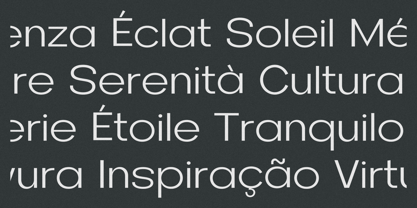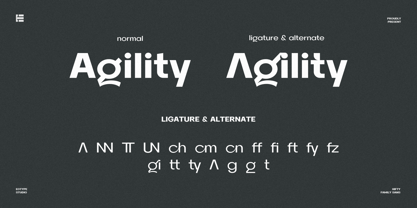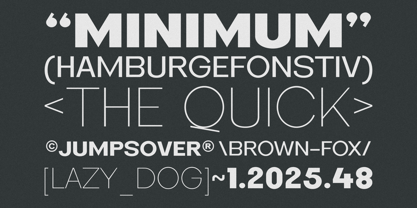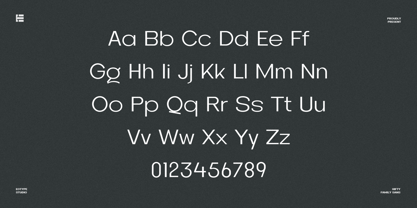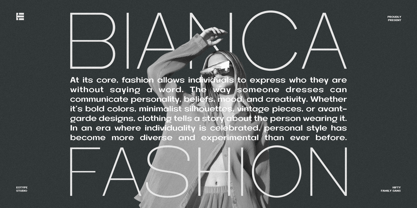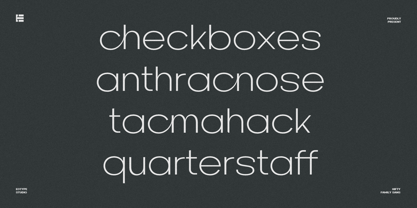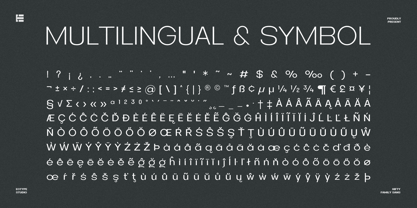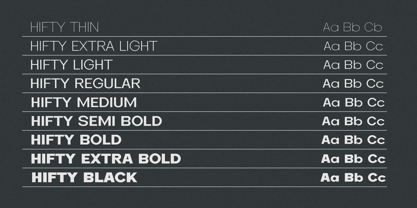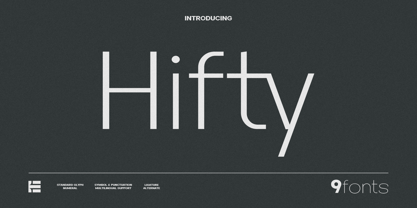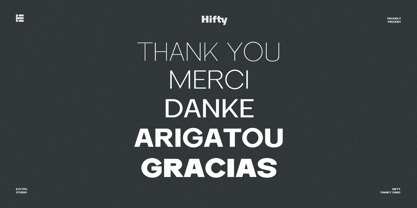
Hifty
by Eotype
The Hifty Font Family was designed by Fajar Ramadan and published by Eotype. Hifty contains 9 styles and family package options.
Hifty Sans Serif Font, perfect for modern branding, clean layouts, and bold visual statements. Designed with simplicity and readability in mind, this typeface offers a sleek, contemporary look that seamlessly adapts to both print and digital platforms.
Designed with nine distinct styles, ranging from Thin to Black, this typeface adapts effortlessly to any design need, whether sleek and refined or strong and commanding
Designers: Fajar Ramadan
Publisher: Eotype
Foundry: Eotype